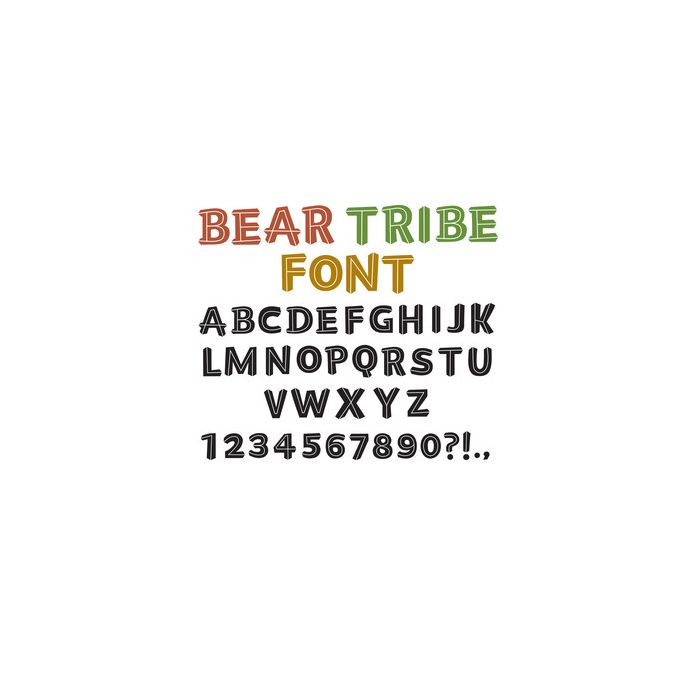
This fun tribal alphabet can be used for any text based project! This font includes uppercase, 0-9, and basic punctuation *Kerning, leading, and baseline may need to be adjusted for desired effect.